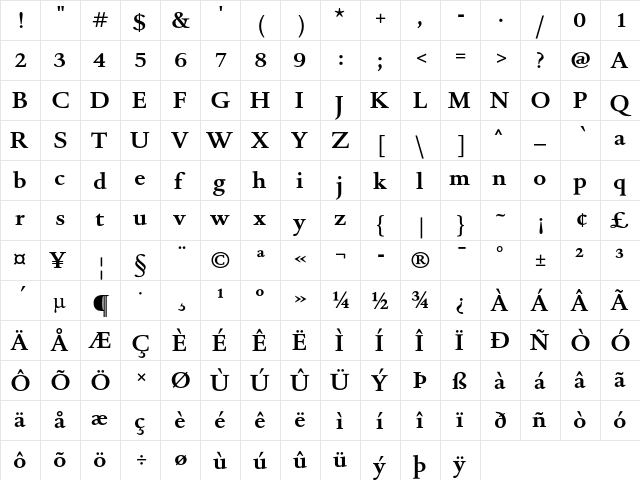
DTL Romulus T Bold
Design Context for DTL Romulus Typeface
DTL Romulus takes a measured approach to typography — its balanced proportions and neutral character make it a reliable workhorse for both digital and print work. The heavy weight commands attention and anchors typographic hierarchies.